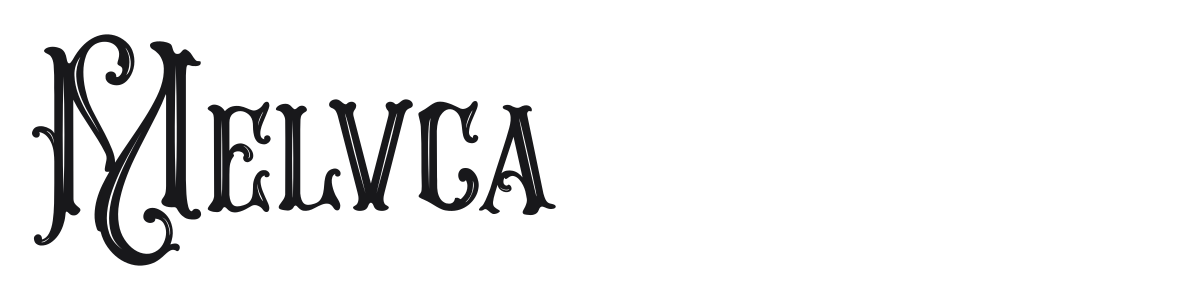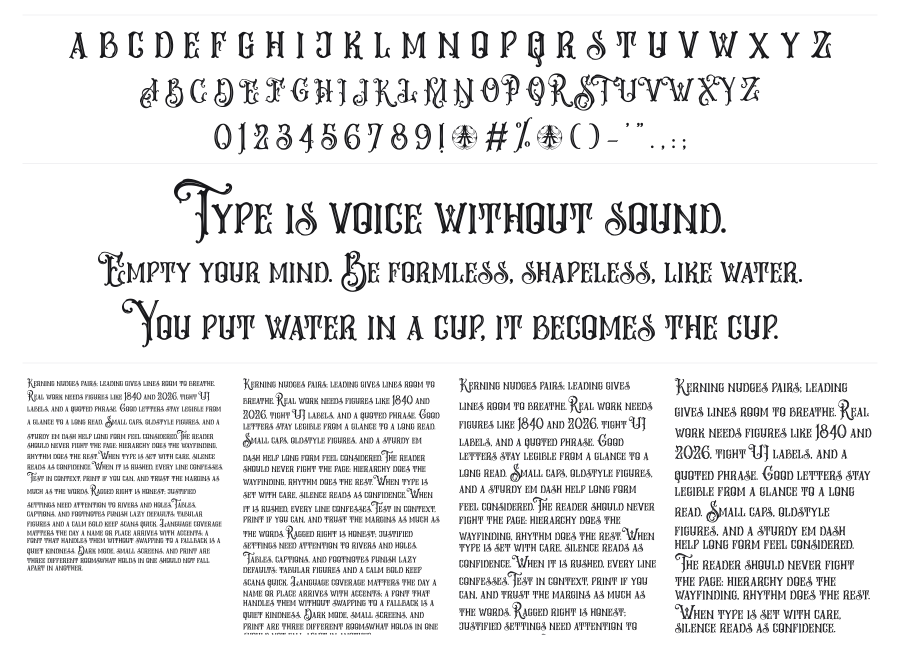
Melvca
by ilhamtaro · Website
Melvca is a Victorian display serif dripping with 19th-century poster ornamentation, built on high-contrast strokes with inline highlights running through the heaviest stems. Elaborate ball terminals, curling flourishes, and gothic-tinged serifs give it a carnival energy that works at large sizes. It sits somewhere between a fairground signboard and an apothecary label.